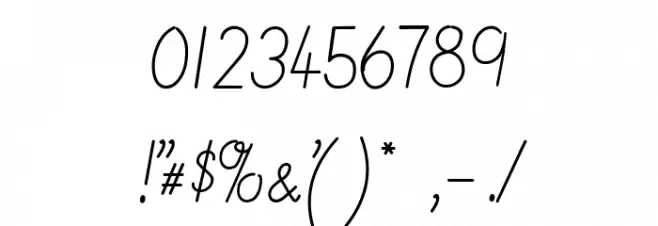
Imrans School Font
Imrans School Description
This font features a flowing, cursive style that mimics elegant handwriting. The characters are connected, giving it a continuous and fluid appearance. The uppercase letters are slightly more elaborate, with graceful loops and curves, while the lowercase letters maintain a consistent, smooth flow. Numbers and special characters are designed to match the overall aesthetic, ensuring a cohesive look. The font's delicate strokes and consistent slant add to its sophisticated and refined feel, making it suitable for projects that require a touch of elegance and personal flair.
A cursive, handwritten-style font with elegant, flowing characters from Uncategorized fonts.
- Overall Style: Elegant, Handwritten